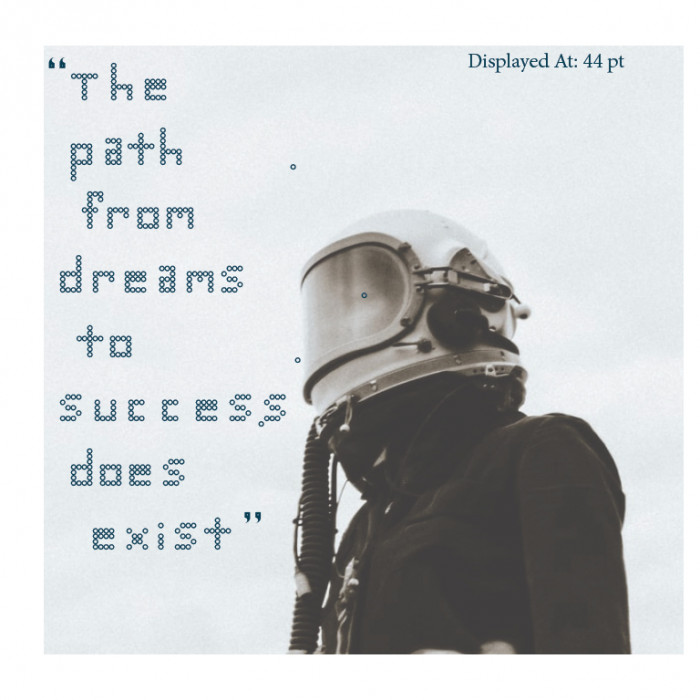
• I was throughly inspired by NASA and the planets while building this typeface. It was created mostly with circular bricks to help convey a light and scientific look but still have it be readible. The future lies within the world of typography.
I had to go back in after posting the following samples to make some adjustments to the kerning of my letterforms. The updated  two artboards are the ones that have the text displayed at 36pt and 44pt.